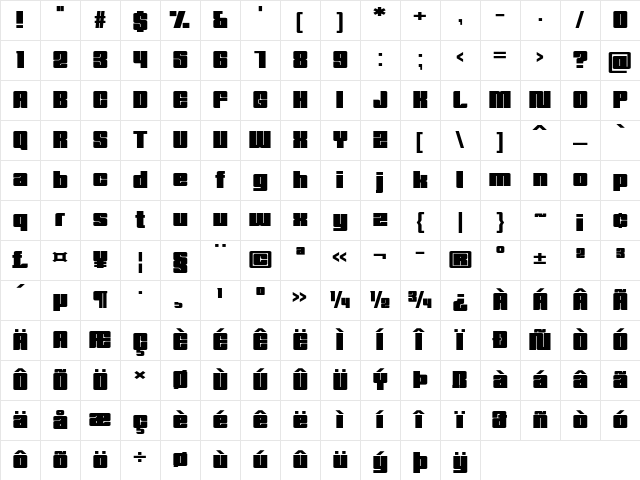
Trudal Extra-expanded Regular Free Font
Trudal Extra-expanded Regular
Style: Extra-expanded Regular
Design Context for Trudal
Trudal is a composed and adaptable typeface that performs quietly and consistently across a wide range of design contexts.